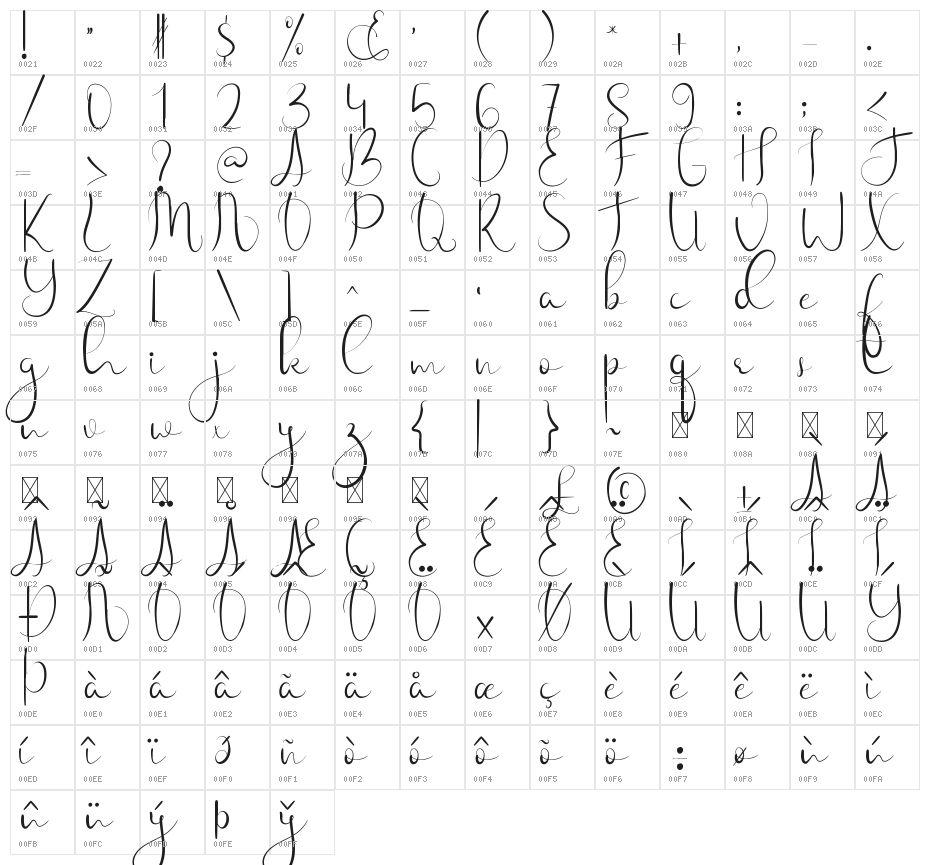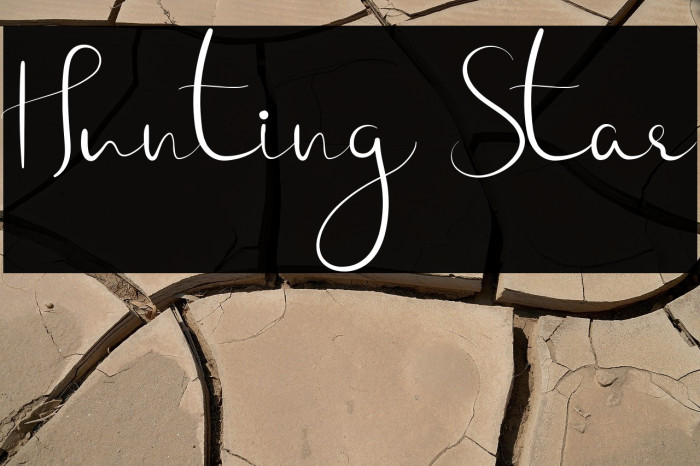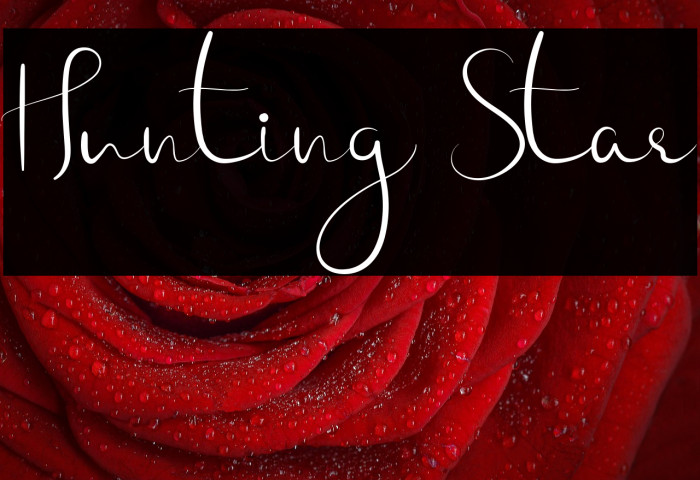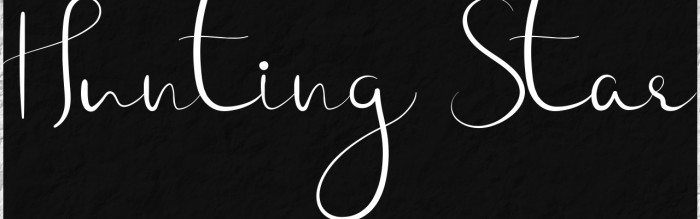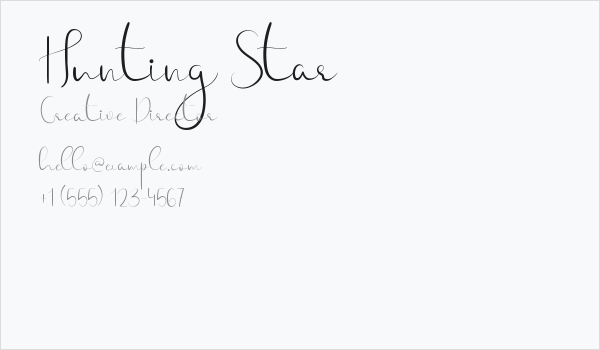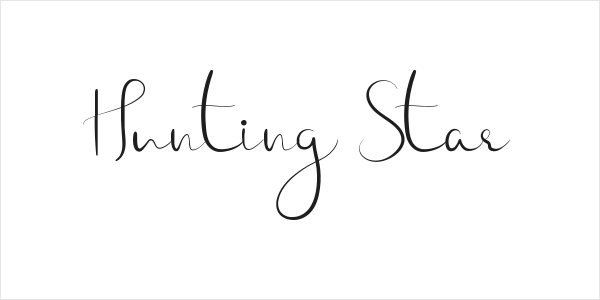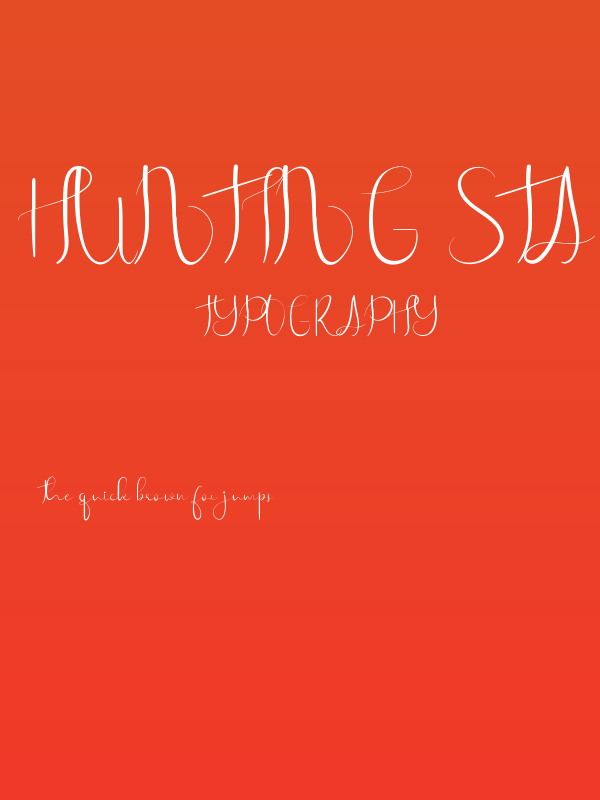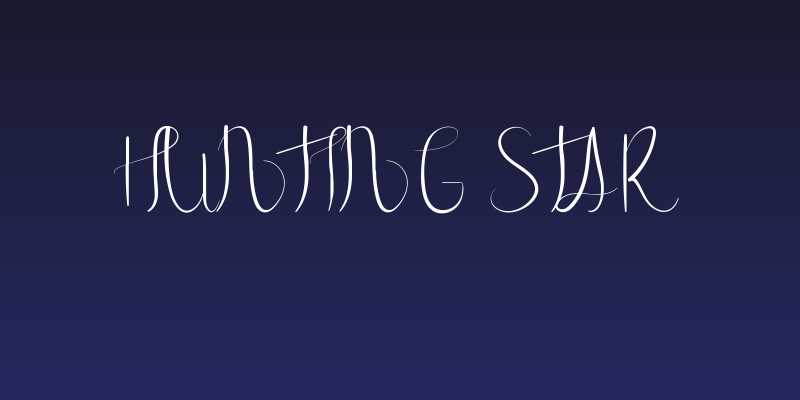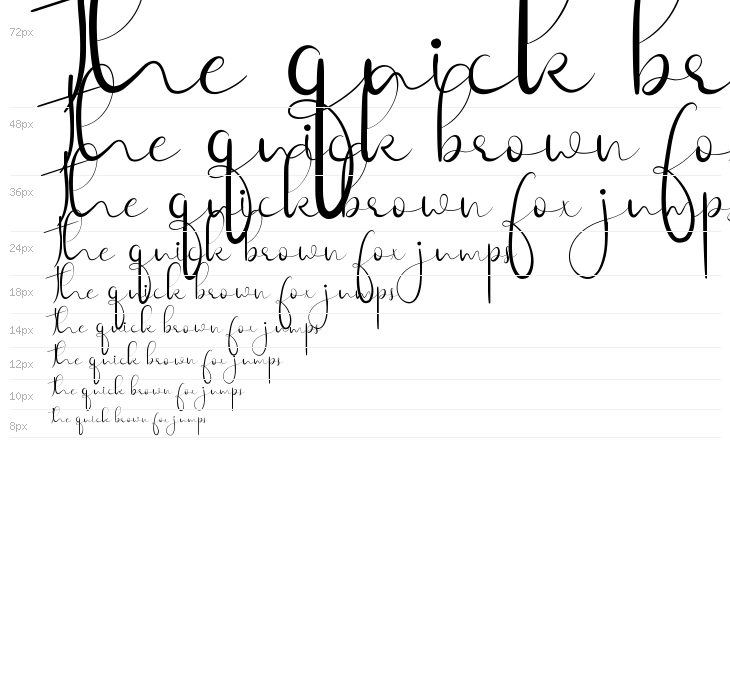
Hunting Star Font
Hunting Star Description
This elegant script font features a flowing, cursive style with delicate, elongated strokes that create a sense of grace and sophistication. The uppercase letters are characterized by sweeping curves and loops, giving them a dynamic and fluid appearance. The lowercase letters maintain a consistent style, with some characters extending below the baseline, adding to the font's charm. The numerals are designed with a similar flair, ensuring a cohesive look across all characters. Special characters are thoughtfully integrated, maintaining the font's overall aesthetic. This font is perfect for projects that require a touch of elegance and creativity.
| Overall Style | Elegant, Artistic |
| Proposed Projects | Ideal for wedding invitations, elegant branding, personal stationery, and artistic projects. |